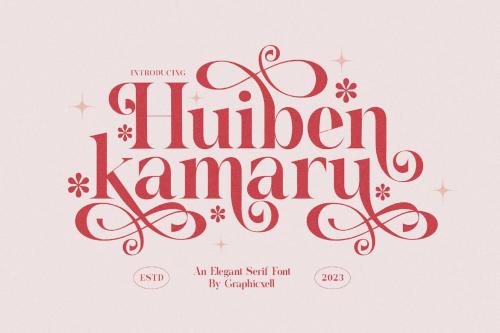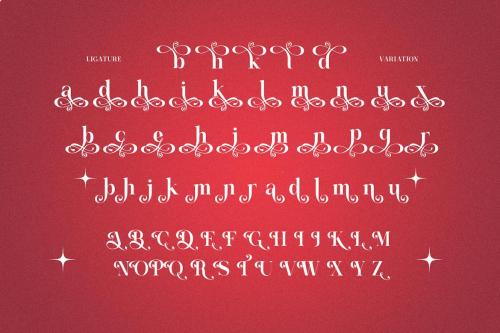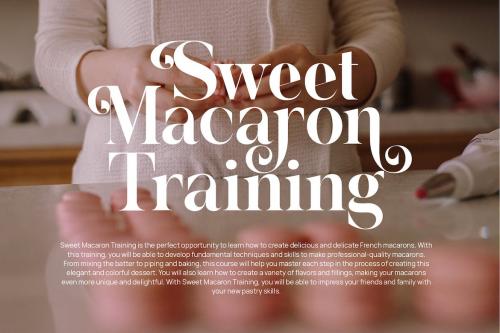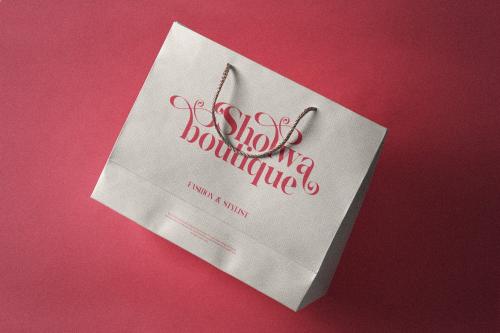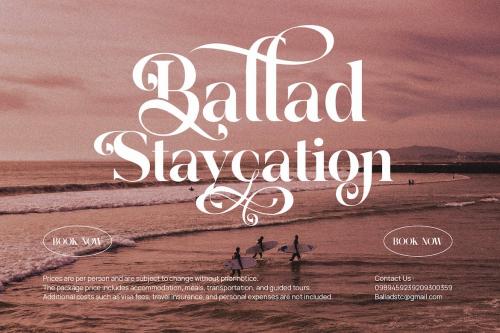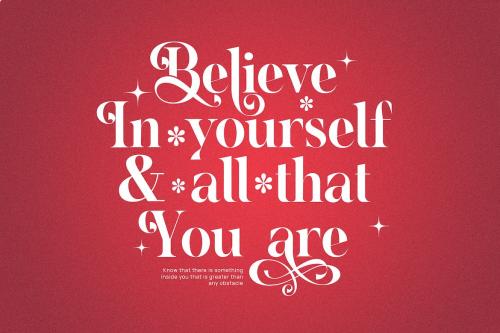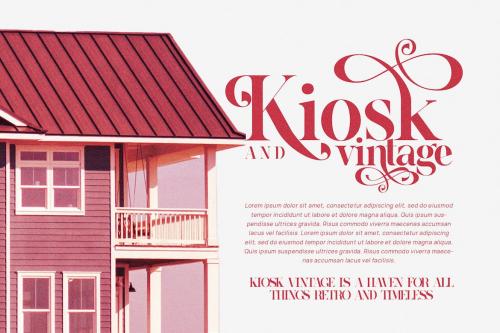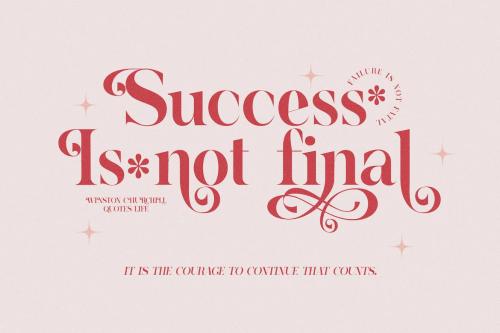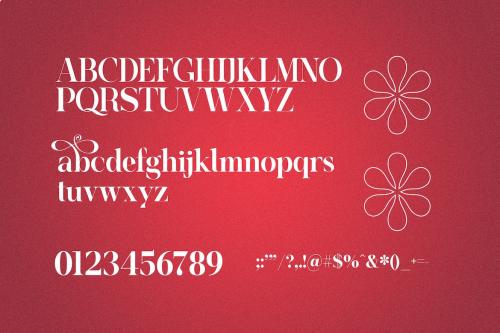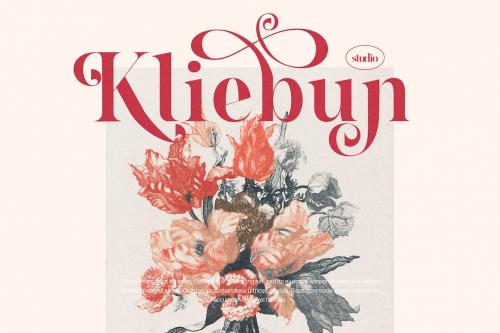
Hubein Kamaru Elegant Ligature Serif Font Typeface
Hubein Kamaru is a unique and very elegant font for branding and logo designs. An elegant serif typeface that has many alternate and ligature features combined with a classy and modern calligraphy style. This font is very suitable to be combined with an elegant design and combined with the currently trending color, namely Crimson Chery, as I show. This type of font is very suitable for your various needs such as branding projects, logos, wedding designs, social media posts, advertisements, product packaging, product designs, labels, photography, watermarks, invitations, stationery, and any project, created at a high level. high readability. You will not be disappointed if you buy this font!!